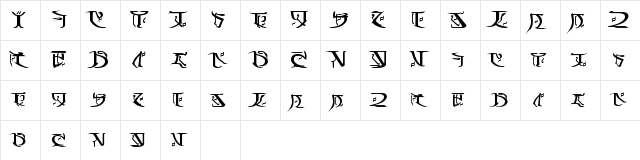
Falmer Bold Free Font
Falmer Bold
Foundry: Neale Davidson
Designer: Neale Davidson
Design Context for Falmer
Falmer is a composed and adaptable typeface that performs quietly and consistently across a wide range of design contexts. Its bold stroke weight gives it real presence on the page.
Who designed the Falmer Bold font?